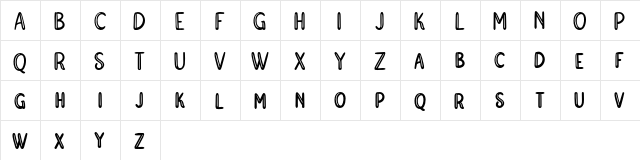
Agnostic Mirossa FREE Regular
Design Context for Agnostic Mirossa FREE Typeface
Agnostic Mirossa FREE is a composed and adaptable typeface that performs quietly and consistently across a wide range of design contexts.
Pro Tip: Use Agnostic Mirossa FREE in both headline and body roles to test its range before committing to a single application.